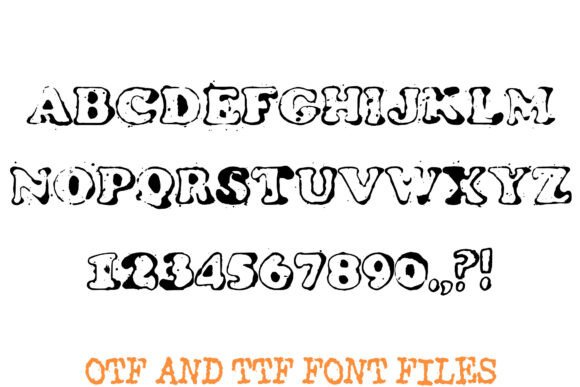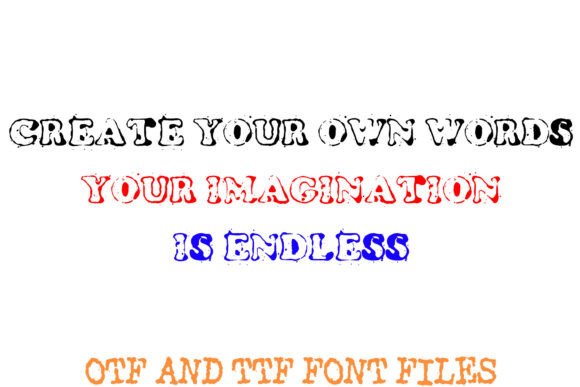
The Imperfections of Perfection: Introducing Distressed Ink Stamp Font
Have you ever spent hours pouring over a design, only to feel like something’s missing? That’s where the magic of Distressed Ink Stamp Font comes in – a bold display typeface that captures the raw, imperfect essence of manual printing.
This unique font was crafted using authentic vintage stamps and real ink, ensuring a texture that’s heavy, raw, and completely original. Whether you’re looking to add a subtle vintage touch or make a high-impact statement, Distressed Ink Stamp Font brings the soul of the print shop to your screen.
As a designer, you know that sometimes it’s the imperfections that make a design truly special. That’s why Distressed Ink Stamp Font is a valuable addition to your toolkit – it’s the perfect way to add a little grit and character to your work, and make it truly unforgettable.
Distressed Ink Stamp Font Key Features
- Font Style: A distressed, vintage-inspired font with a unique, hand-stamped look, ideal for adding a touch of nostalgia and authenticity to designs.
- Unique Characteristics: The Distressed Ink Stamp Font features a unique blend of ink splatters, texture, and imperfections, giving it a truly handmade look.
Distressed Ink Stamp Font Review
Overall, I’m quite fond of the Distressed Ink Stamp Font. It’s perfect for adding a touch of vintage charm to your designs. ✨ The unique blend of distressed textures and ink-like effects gives it a unique, hand-stamped look that’s hard to replicate with other fonts.
Here are some of the things that work well:
- ✨ Great for creating a vintage or retro vibe
- ✨ Unique, hand-stamped look that adds character to designs
- ✨ Versatile and can be used in a variety of contexts, from wedding invitations to branding materials
- ⚠️ May not be suitable for designs that require a clean, modern look
- ⚠️ Can be difficult to read at small font sizes due to the distressed texture
Overall, I think the Distressed Ink Stamp Font is a great addition to any designer’s toolkit. While it may have some limitations, its unique look and versatility make it a valuable resource for creating unique and eye-catching designs.
To get the most out of the Distressed Ink Stamp Font, use it for designs that require a vintage or distressed look, such as:
1. Retro-style posters and flyers.
2. Distressed text effects in graphic design.
3. Vintage-inspired social media graphics.